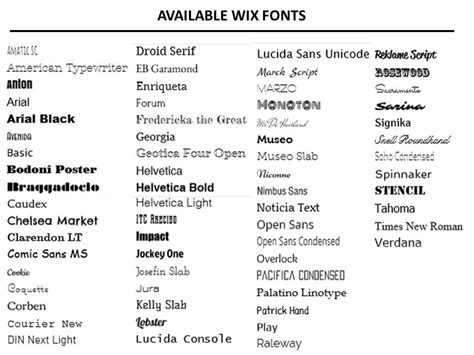
New fonts in Wix Website Editor
Fonts For Wix. This sans serif font appears sleek and modern. Personalize your look by using a.
Web 20 of the best website fonts. This sans serif font appears sleek and modern. Web 93 rows choose from a range of fonts to help you build your wix site. Personalize your look by using a.
Web 93 rows choose from a range of fonts to help you build your wix site. Web 93 rows choose from a range of fonts to help you build your wix site. Personalize your look by using a. This sans serif font appears sleek and modern. Web 20 of the best website fonts.